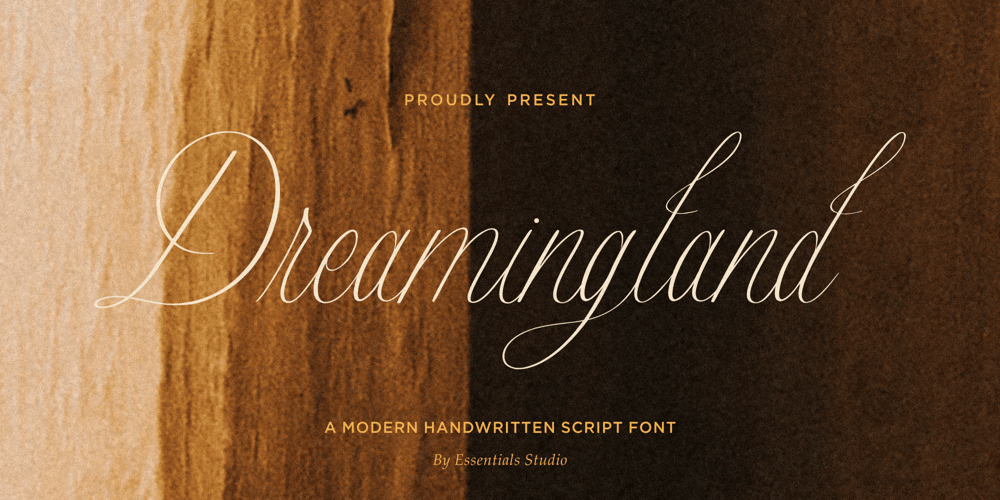
Dreamingland
Dreamingland font
Dreamingland Font Family was designed by Bagus Panji Asmoro and published by Essentials Studio. Dreamingland contains 1 styles and family package options. Witness the whimsical allure of Dreamingland Beautiful Thin Script, an exclusively stylized font meticulously formulated by Essentials Studio. This font is the embodiment of craftsmanship and attention to detail. Its versatility transforms any project into an eye-pleasing vision, making it an indispensable component of your typography arsenal. Exemplary for use in product packaging, branding endeavors, glossy magazines, dynamic social media content, romantic wedding invitations and for adding character to any text overlay. With Dreamingland Beautiful Thin Script, every word whispers elegance.